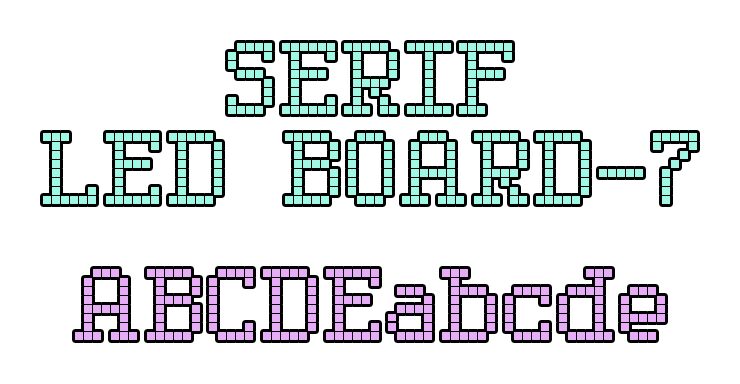
Serif LED Board-7 by Style-7 is a free digital display font that combines an LED signboard look with small slab-like caps and feet. Broken strokes and open joins give the tall letters a formal edge.
Transit-themed posters are a particularly good match, and the crisp electronic character also suits scoreboard graphics, music event signage, and arcade interfaces. Consumer tech packaging can borrow its mix of machine-made signals and serif detail, the same combination that connects all these otherwise different settings.
Serif LED Board-7